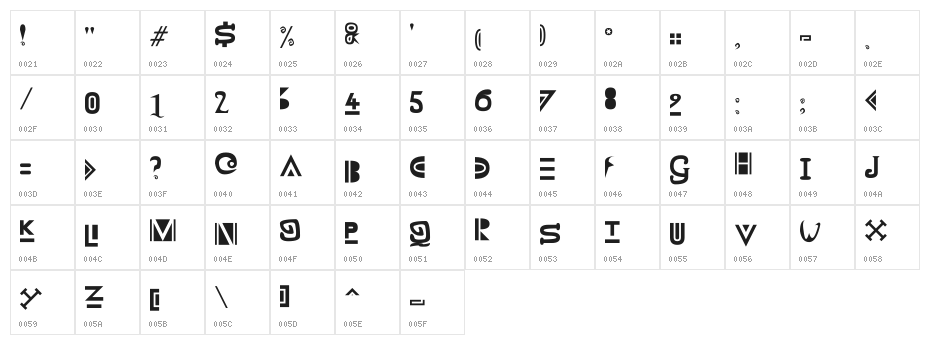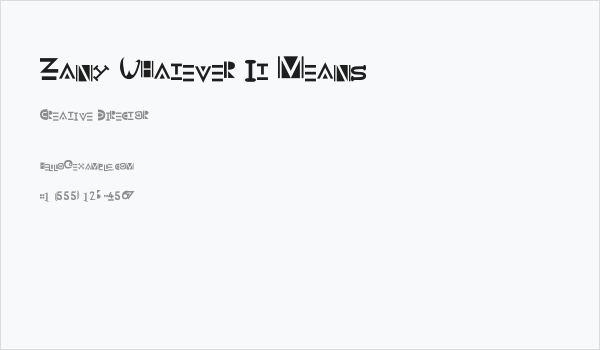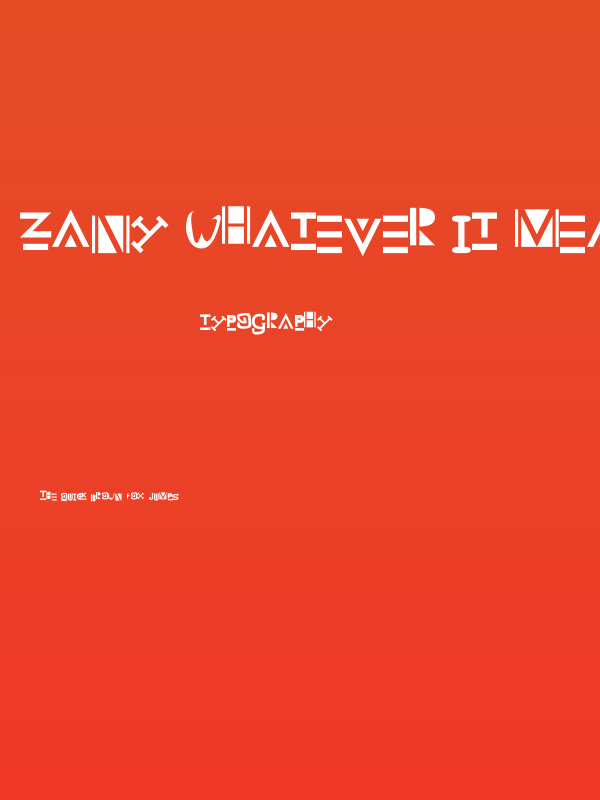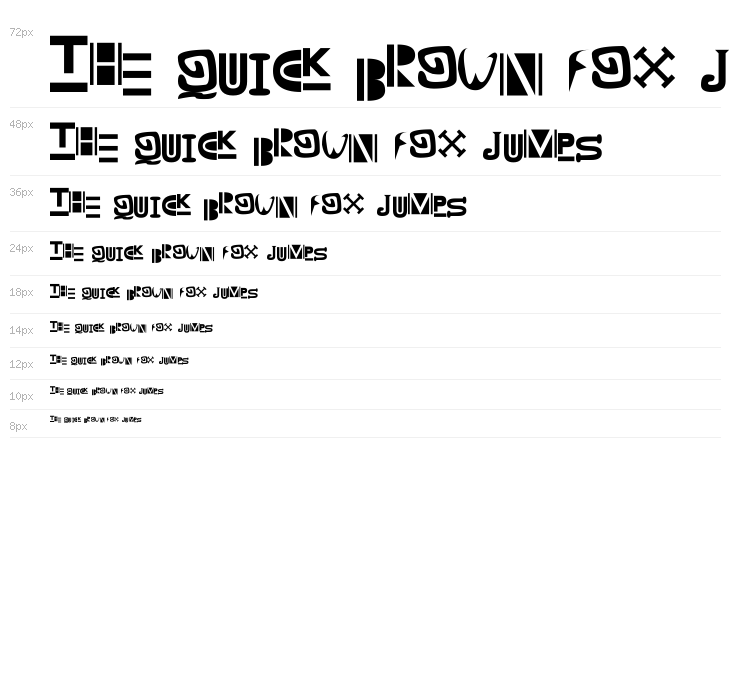
Zany Whatever It Means Font
Zany Whatever It Means Description
This font is a bold and eclectic display typeface that combines geometric shapes with whimsical elements. Each character is uniquely designed with a playful twist, incorporating unexpected curves, angles, and decorative features. The uppercase letters are particularly striking, with some characters featuring exaggerated serifs and others having abstract, almost tribal motifs. The lowercase letters maintain the same playful spirit, offering a cohesive yet varied look. Numbers and special characters continue the theme, ensuring a consistent style throughout. This font is ideal for projects that require a bold statement and a touch of creativity.
| Proposed Projects | Ideal for posters, album covers, branding for creative industries, and any project needing a bold, artistic touch. |